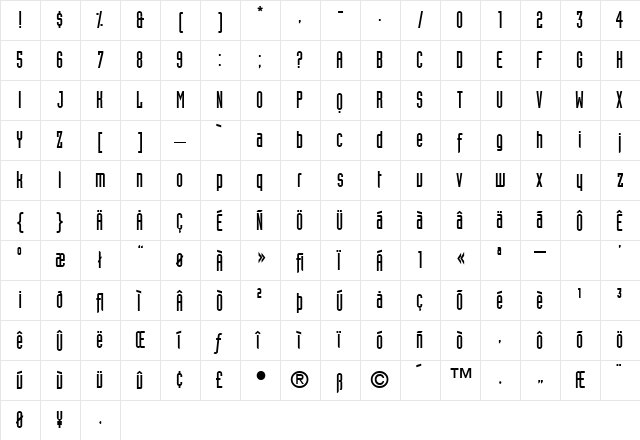
Industria-Solid Regular Font Preview
Industria-Solid Regular
Industria-Solid Regular Font Details
Design Context for Industria-Solid Typeface
Industria-Solid offers clean, dependable letterforms without strong stylistic allegiance, making it a practical choice for designers who need flexibility.